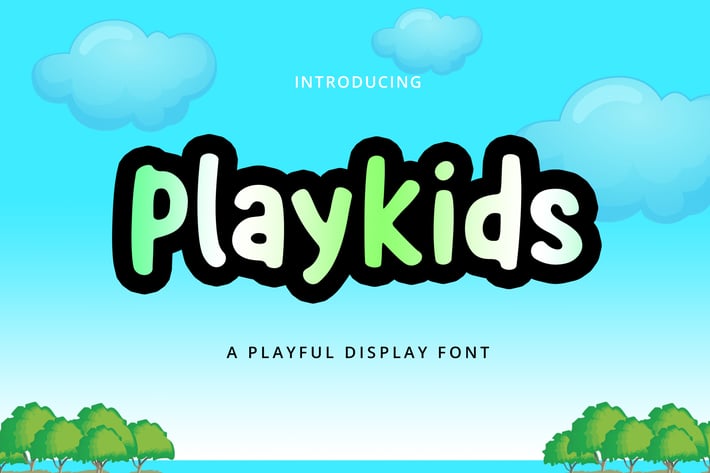
Playkids Font
Playkids Font is a fun, jolly and incredibly charming display font. It embodies playfulness and authenticity and is the perfect choice for any children activity or school project.